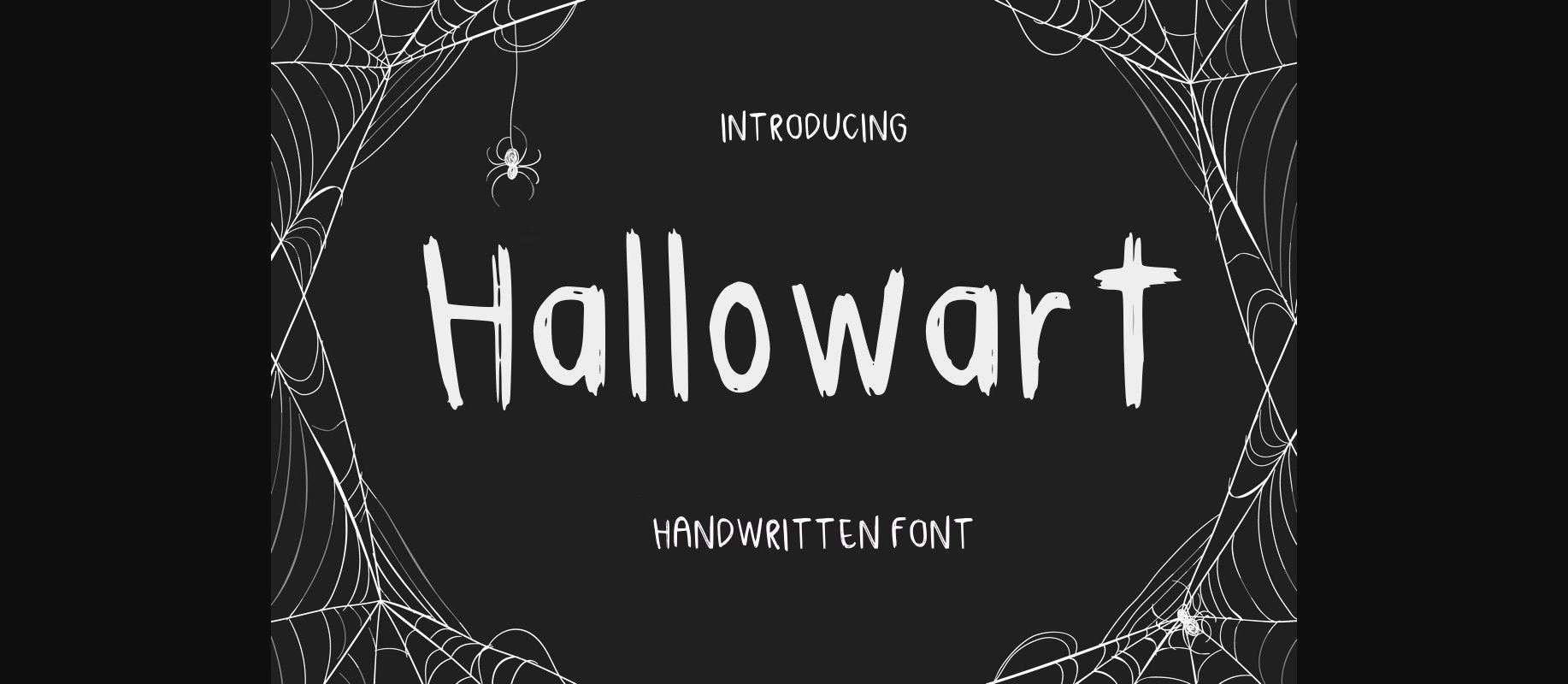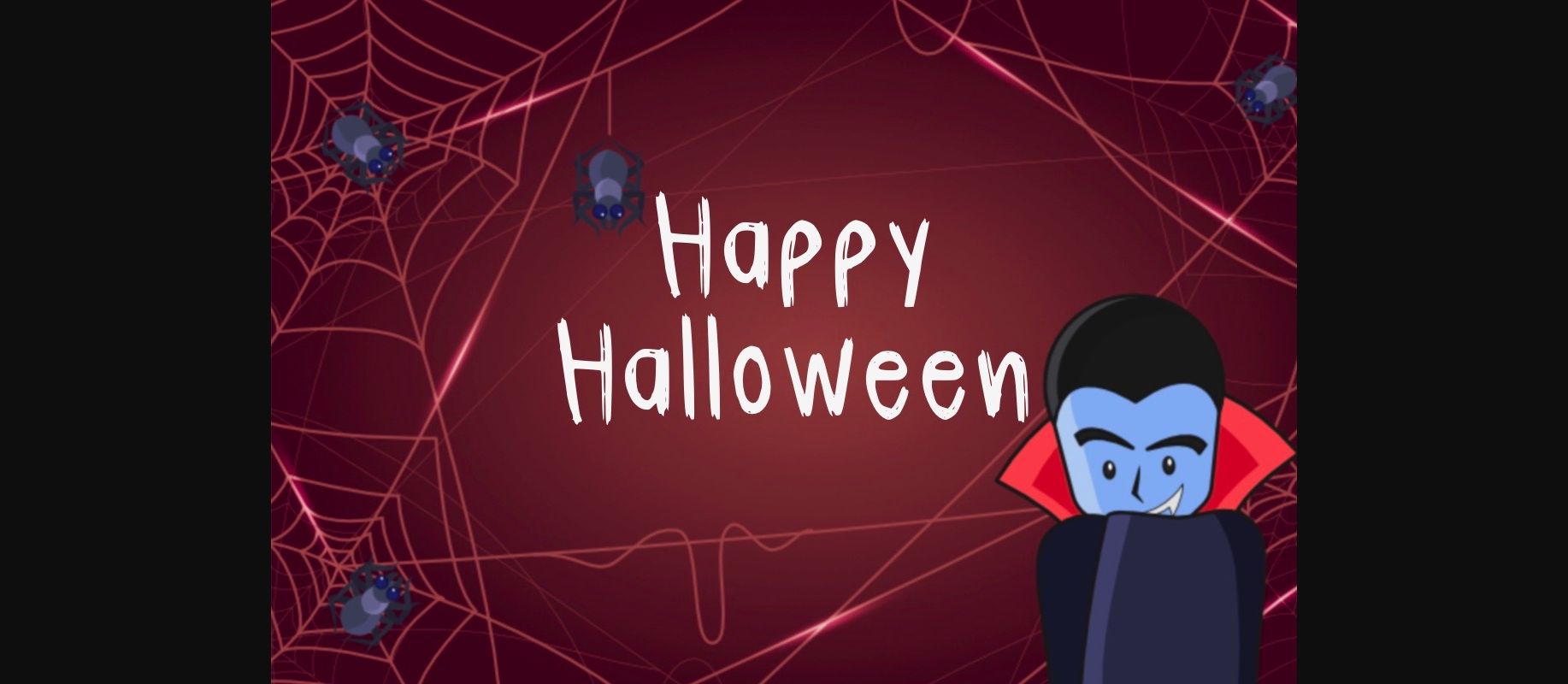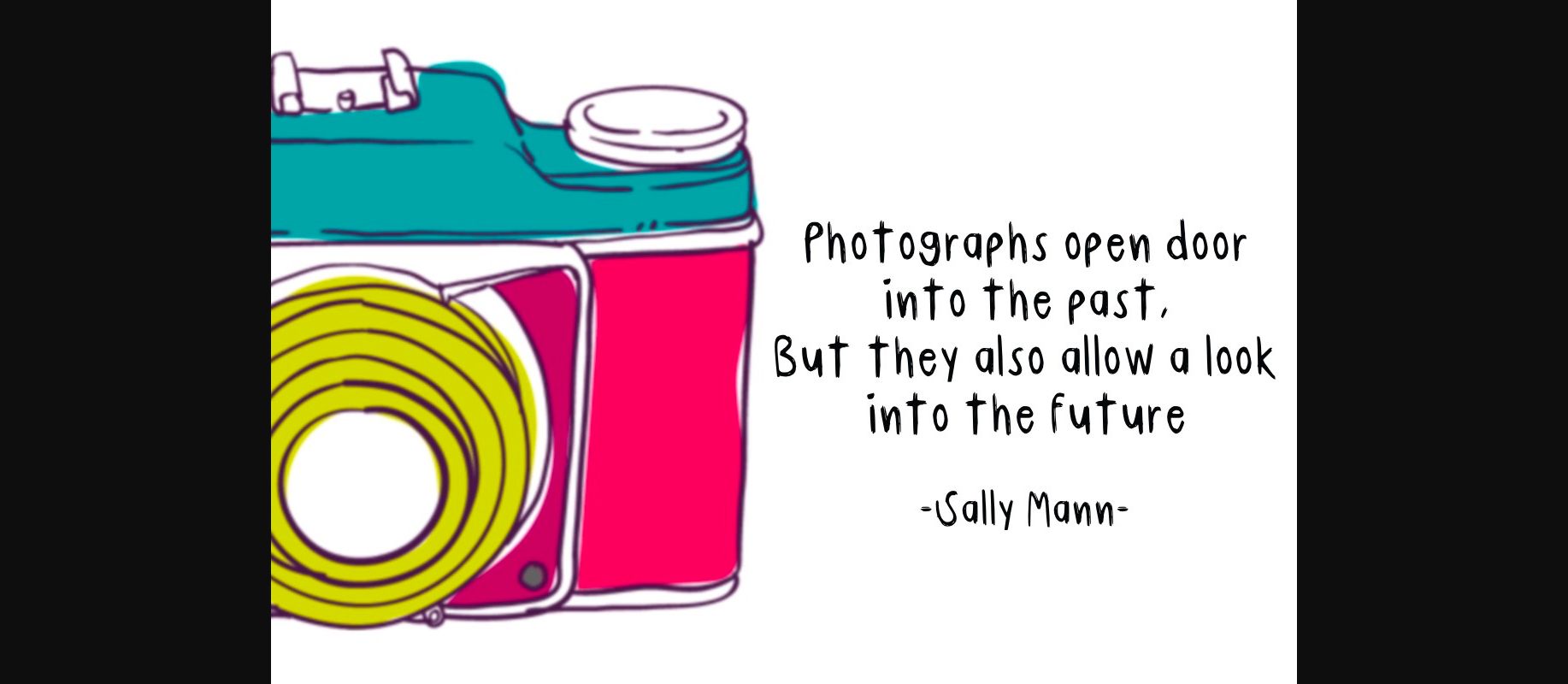
About Hallowart Font
Hallowart is a great and casual handwritten font. It features an incredibly scary style, while still keeping a friendly feel. This font is the perfect for making gorgeous wedding invitations, beautiful stationary art, eye-catching social media posts, logos, branding, cute greeting cards and much more! It brings amazing bonus files for your Halloween’s projects!